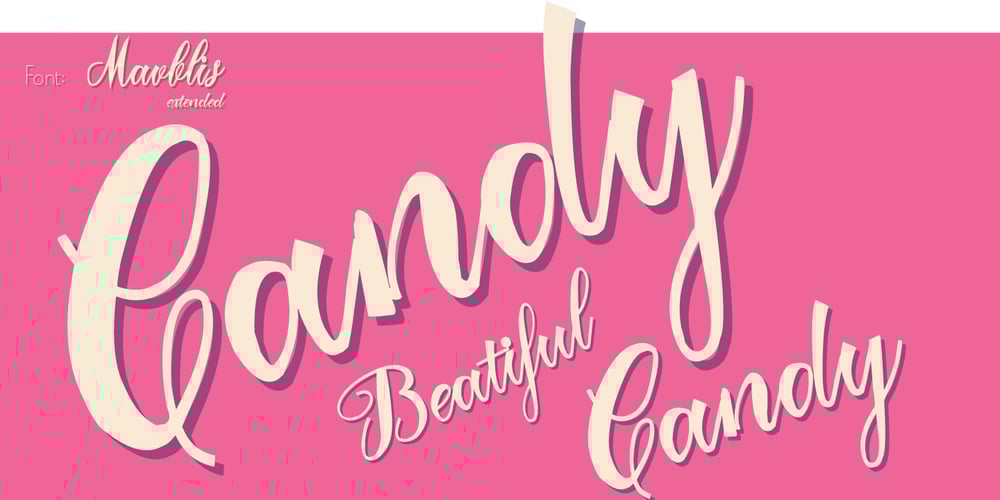
Mavblis
Mavblis font
Mavblis Font Family was designed by Aga Silva and published by Aga Silva. Mavblis contains 6 styles and family package options. Mavblis fonts have playful and fancy look, which may recall that seen in fifties ads. The look, which is quite bold may well allow for using this font in titles, packaging, or catchphrases. There are also some ligatures and alternates encoded, so you are not stuck with one look in case you require to add some variety to your text. There are over 900 characters in each font, and many languages are served.